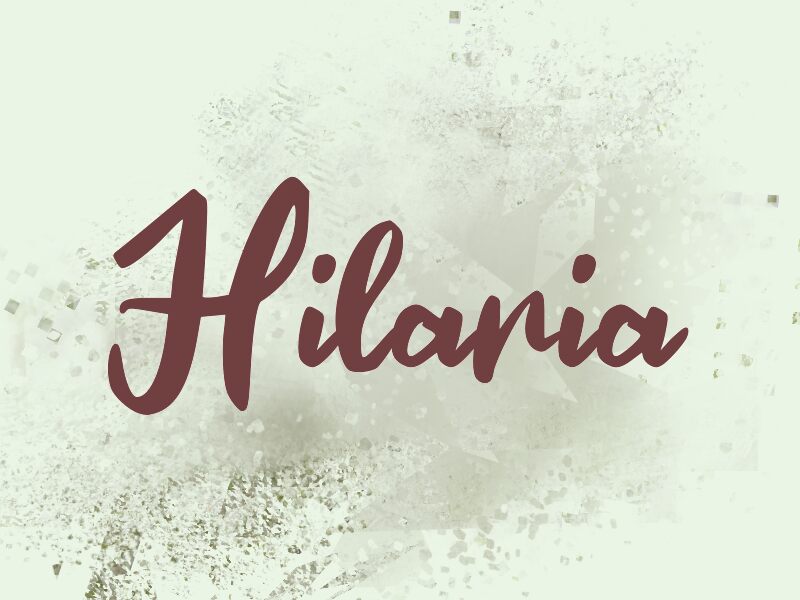
Hilaria
Hilaria font by wep embodies casual elegance in a handwritten style. Its expressive, smooth flow creates a friendly aesthetic with an inviting and modern script vibe. Versatile and engaging, Hilaria adds a playful yet polished touch to any project.